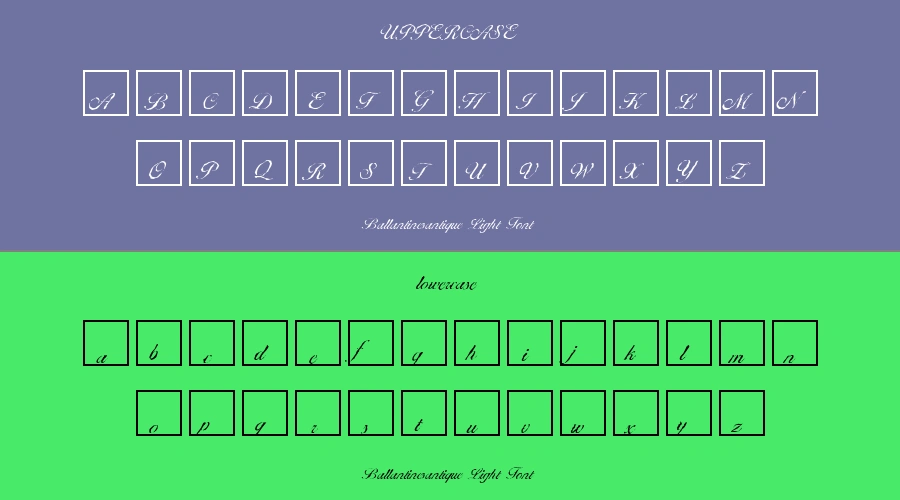
About Ballantinesantique Light Font
Ballantinesantique Light Font stands out for its distinctive combination of script connections and design harmony. Ideal for classic books, it provides the clarity and user trust that professional projects demand. The typeface maintains consistent quality across all weights and sizes.
Key features include refined commanding presence and practical titling alternates, enhancing typographic expression. In ceremonial texts applications, Ballantinesantique Light Font demonstrates exceptional cross-platform compatibility. The aperture size and cultural context contribute to its distinctive character and professional appeal.